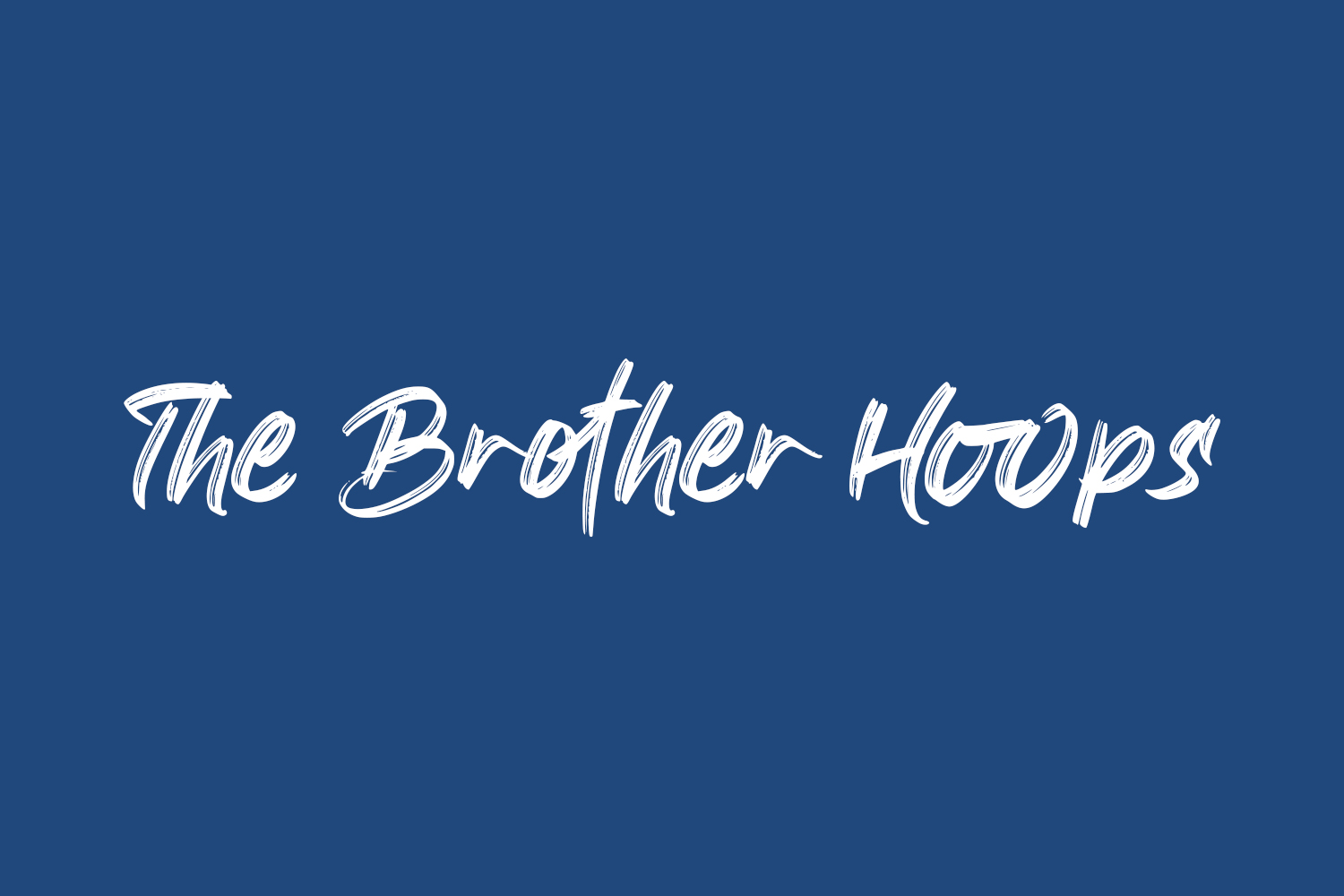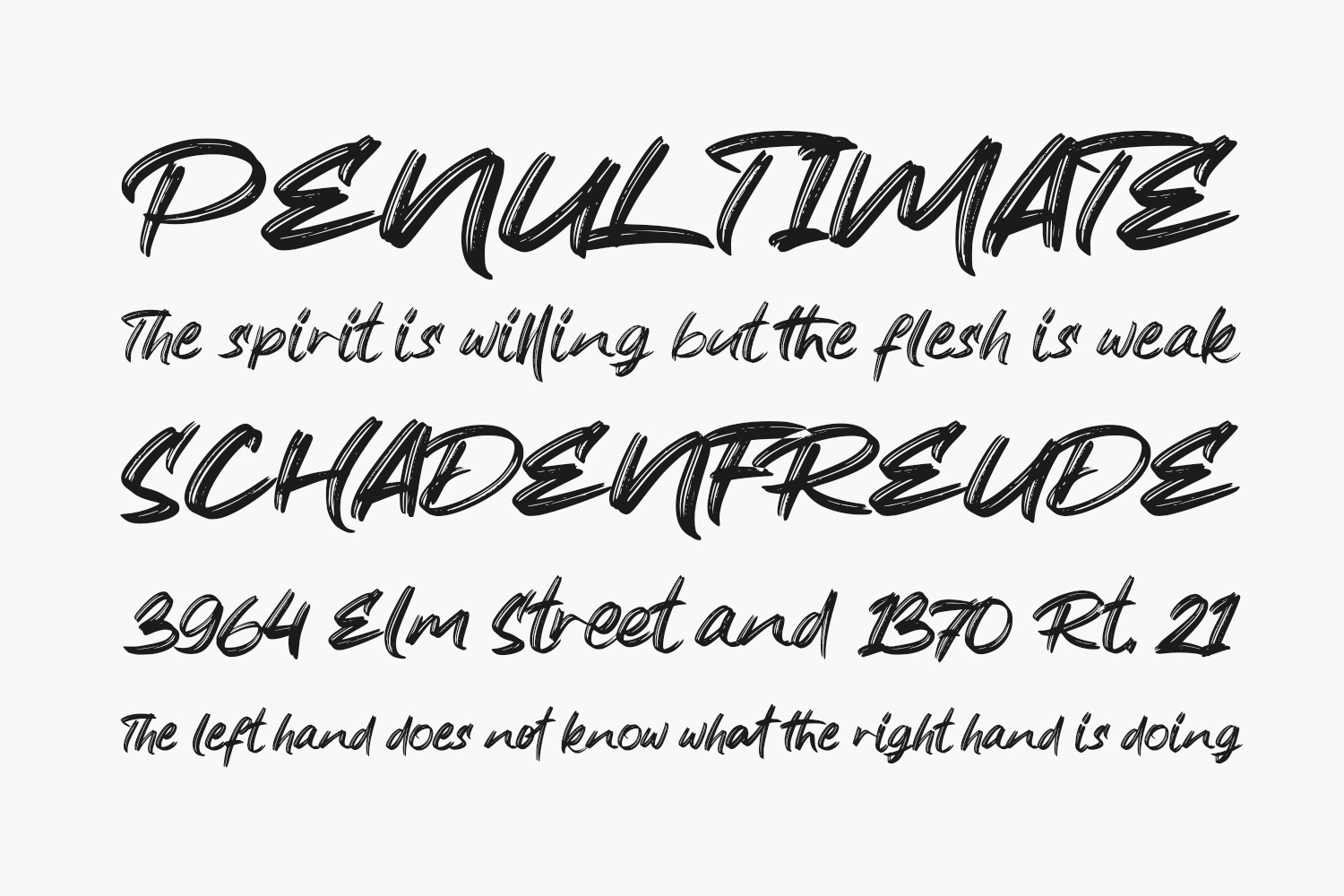
The Brother Hoops Free Font is a lovely brushed handwritten font. It can be used for various purposes such as logos, wedding invitations, headings, t-shirts, letterhead, signage, labels, news, posters, badges and so much more. The Brother Hoops Free Font was designed by Figuree Studio and is free for personal use only. Please purchase the full version for commercial use.